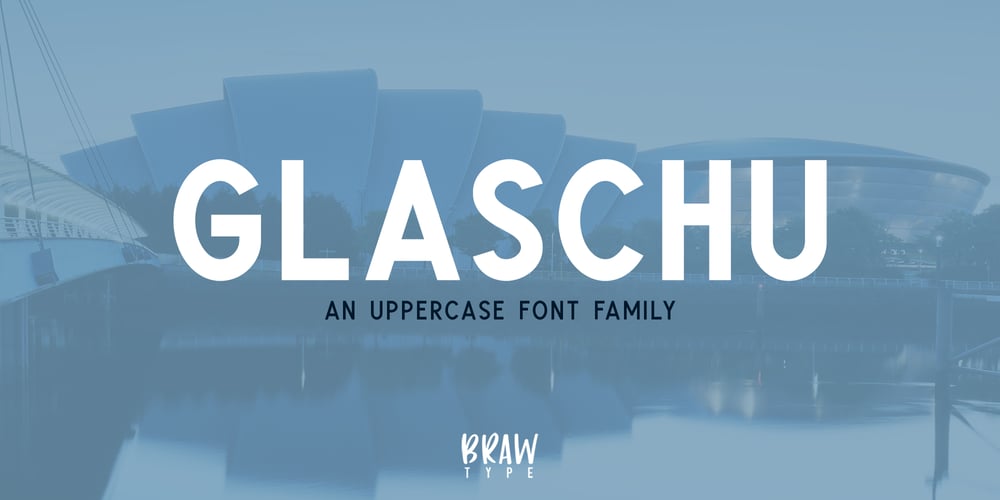
Glaschu
Glaschu font
Glaschu Font Family was designed by Rae Arnott and published by Braw Type. Glaschu contains 8 styles and family package options. Glaschu is a modern, uppercase typeface which comes in 5 font weights with 2 additional outline styles. It’s clean, crisp edges and bold appearance makes it a perfect choice for headings, branding, signage, advertising, magazine layouts and more.Combine the outline styles with Glaschu ExtraBold to go even more creative with your lettering!FEATURES Uppercase Letters Numerals & Punctuation Multilingual Support Glaschu Inline is a bonus font which has been added to the Glaschu Font Family for free!